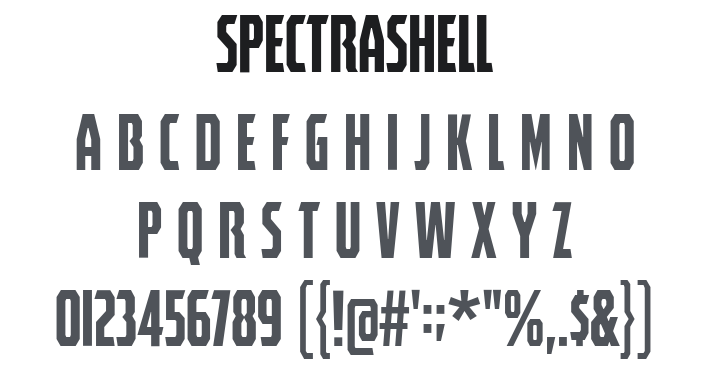
Spectrashell Font
About Spectrashell
Spectrashell is a bold, compressed all-caps display typeface born as a real product logotype — designed to fit inside a metal-stamped hexagonal badge on rugged waterproof passport cases. Its heavy, sharp-angled letterforms feature deliberate geometric cuts that harmonize beautifully with hexagonal patterns and shapes. Perfect for outdoor gear branding, industrial product design, military-themed graphics, tech posters, and any headline needing tough, uncompromising visual impact.